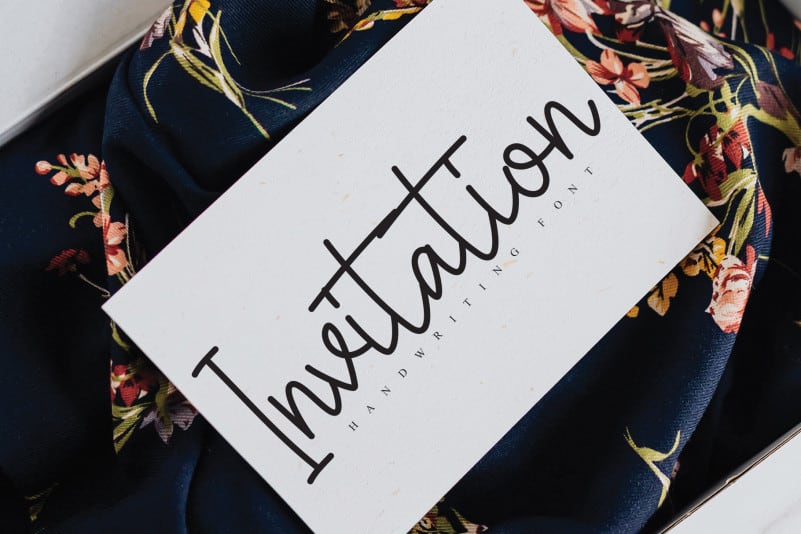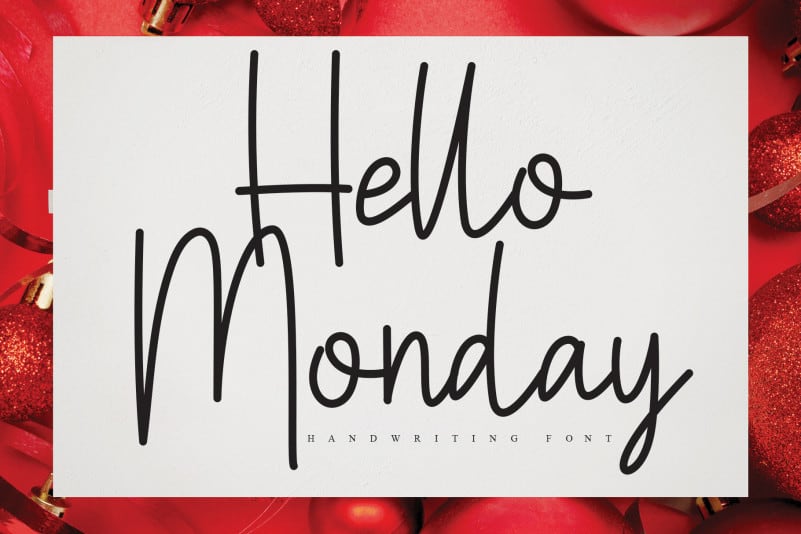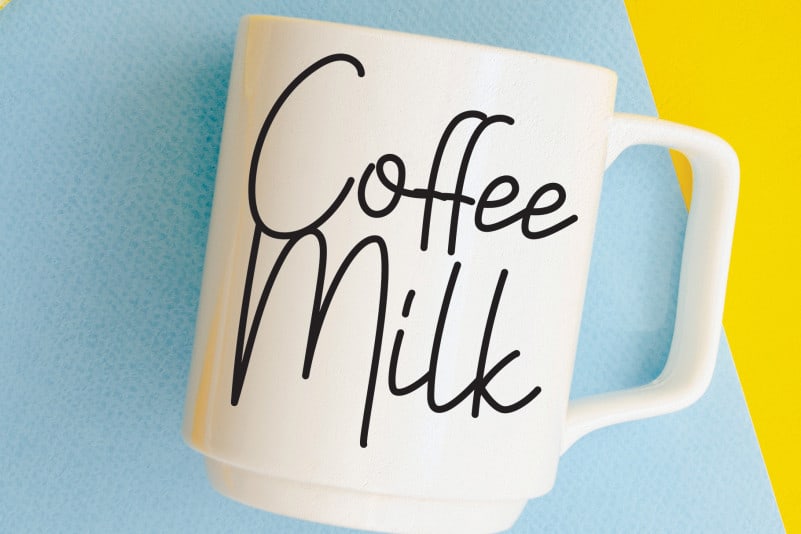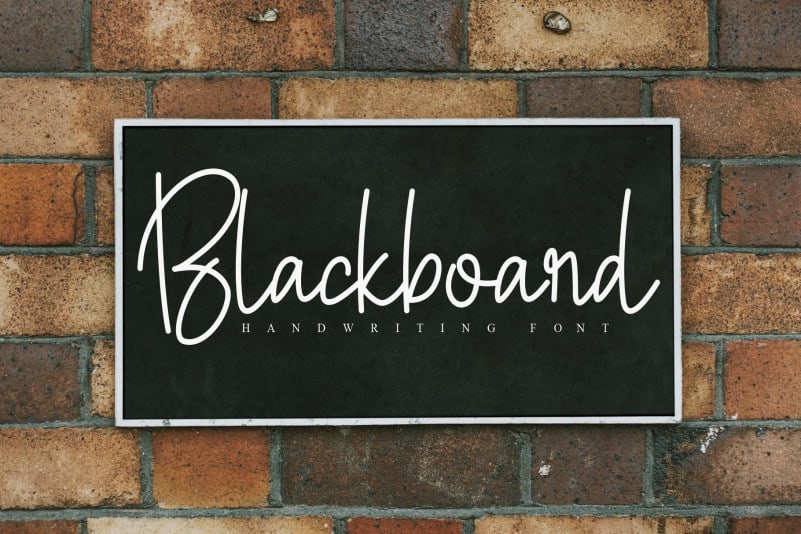
Bewitched Handwritten Font
Introducing Bewitched Handwritten Font. The latest style letters are perfect for wall displays, wedding invitations, social media post logos, advertisements, product packaging, product designs, labels, photography, watermarks, invitations, stationery, and any project that requires taste handwriting.